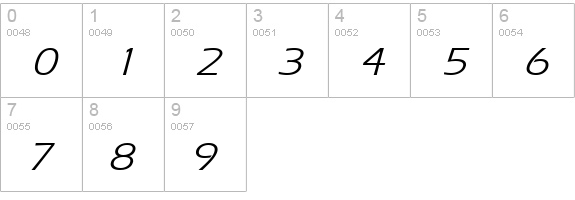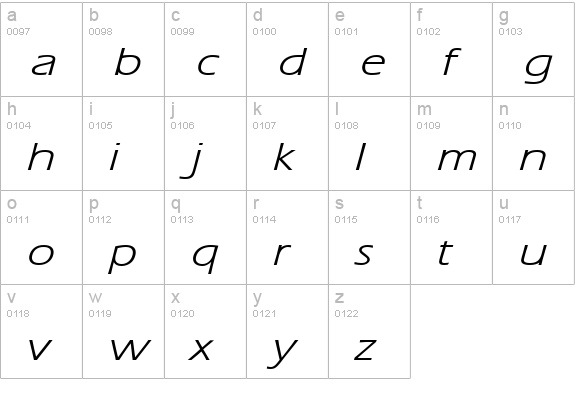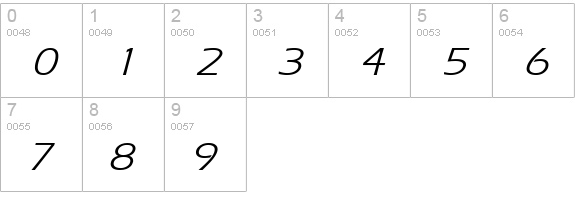
Eric Lite Extended BoldItalic is a distinctive, extended-width variant in the Eric typeface family \xE2\x80\x94 well suited to design and typography projects.
Introducing Eric Lite Extended BoldItalic font, a versatile typeface designed to make a bold statement with a touch of elegance. This modern and sleek font is perfect for adding a sophisticated flair to your projects. The extended bold italic style gives your text a strong presence while maintaining a sense of refinement. And the best part? Eric Lite Extended BoldItalic font is completely free! Yes, you heard that right - this stunning font is available for free download at FontsMarket.com. Whether you're working on a design project, creating branding materials, or simply want to elevate your typography game, this font is a must-have in your collection. Experience the power of Eric Lite Extended BoldItalic font and elevate your designs to new heights. Download it for free today at FontsMarket.com and let your creativity shine!